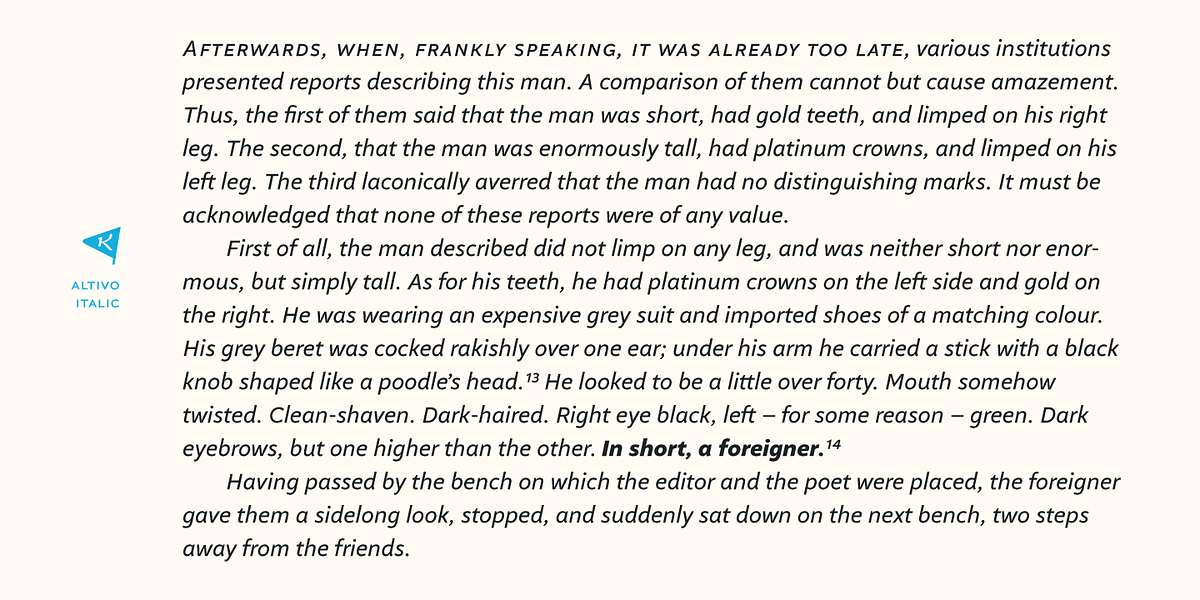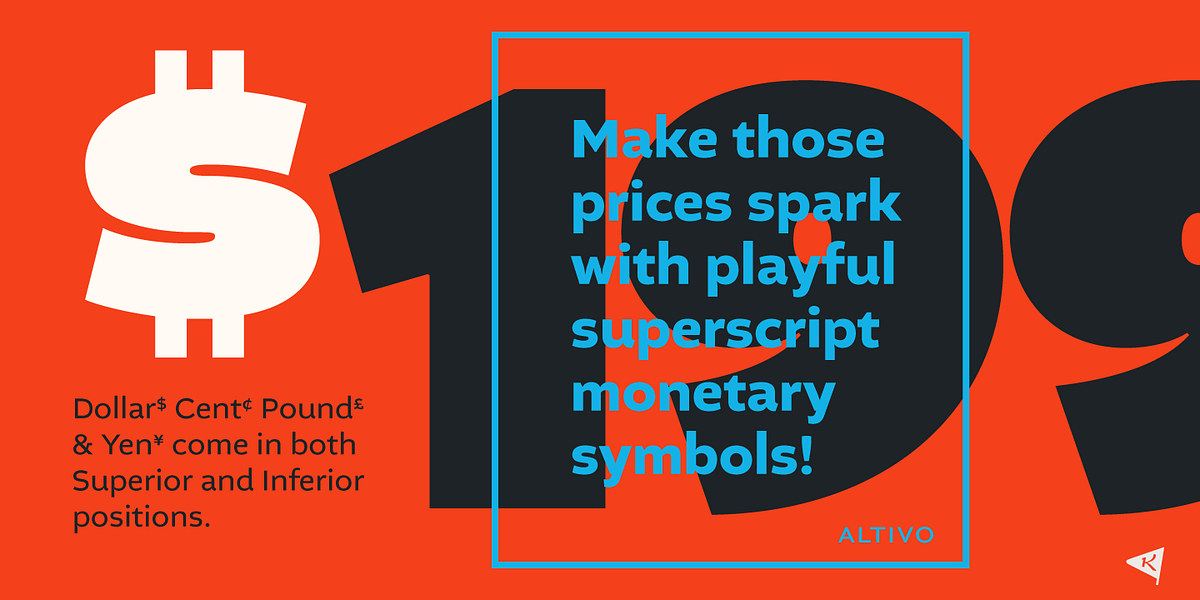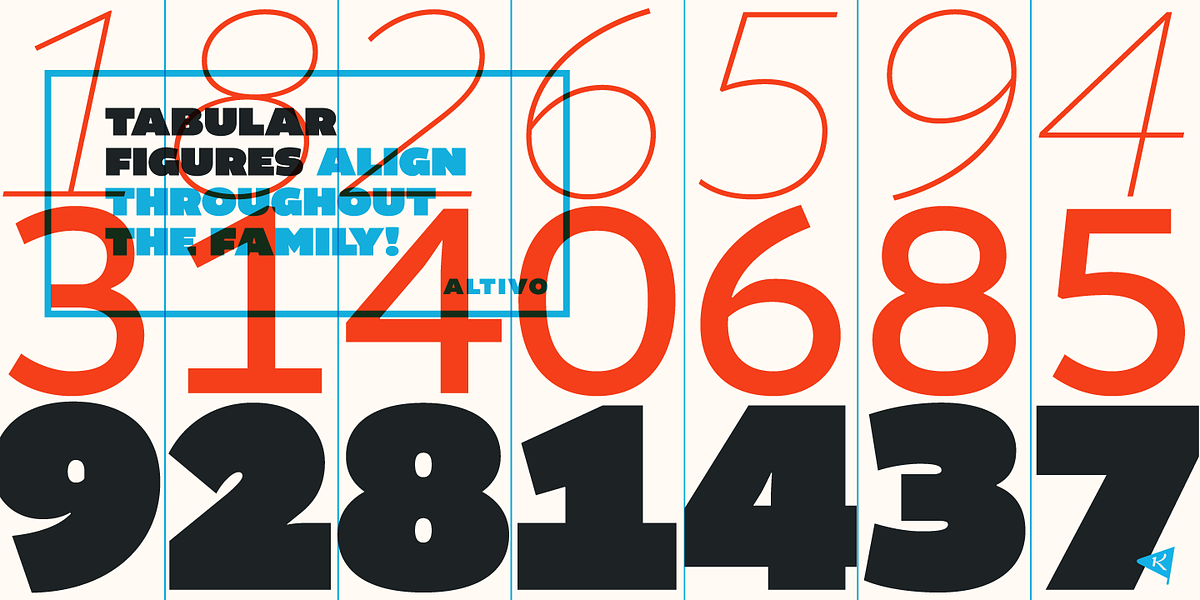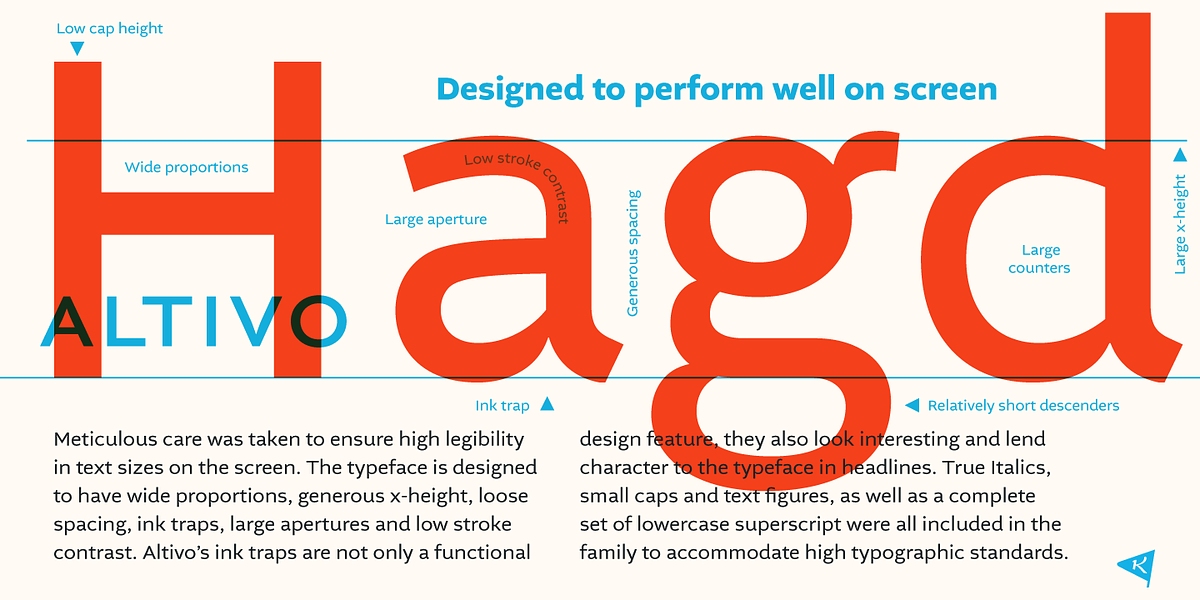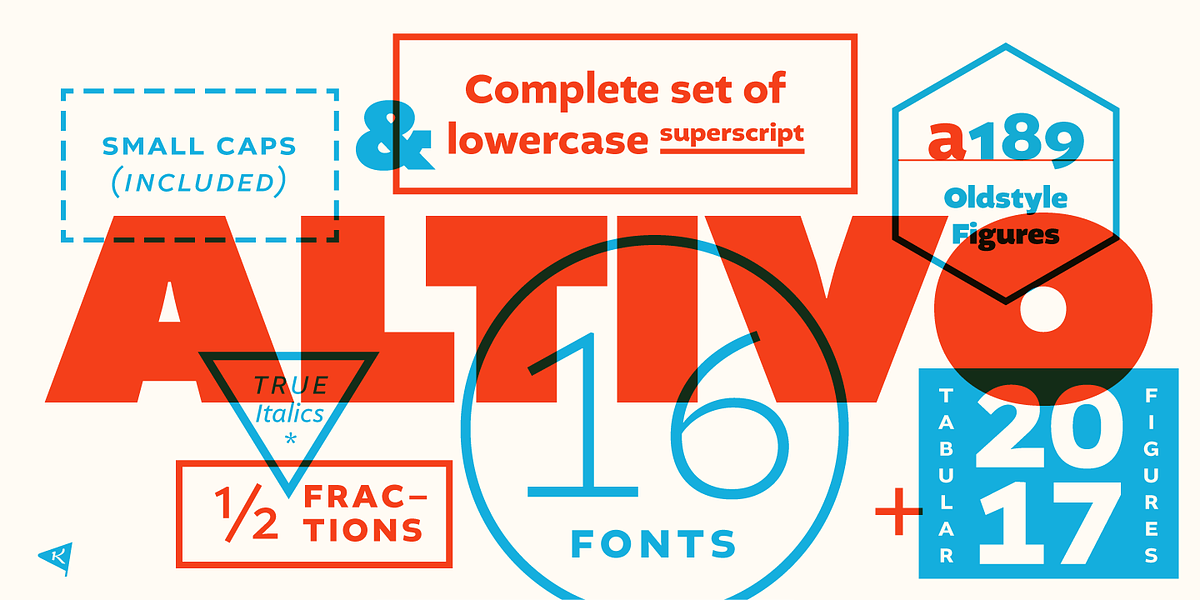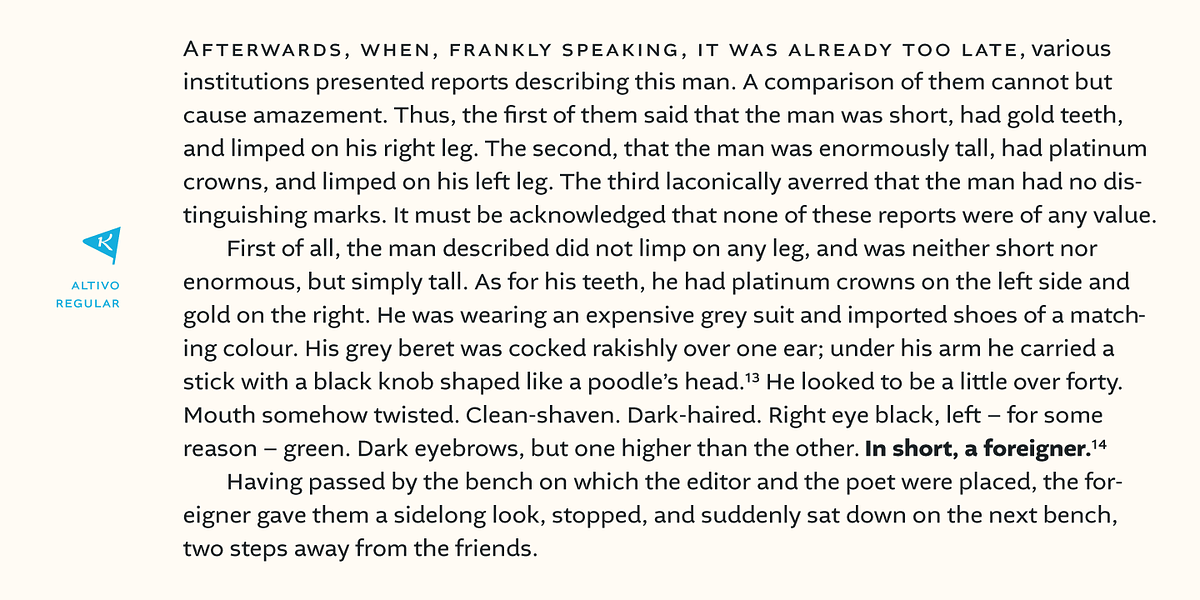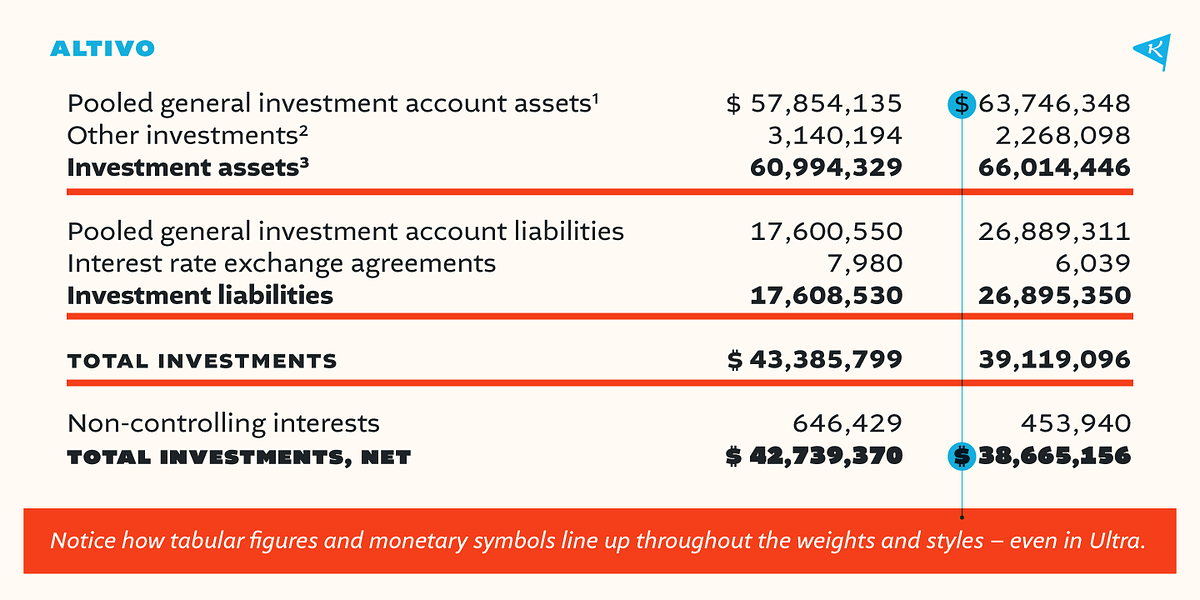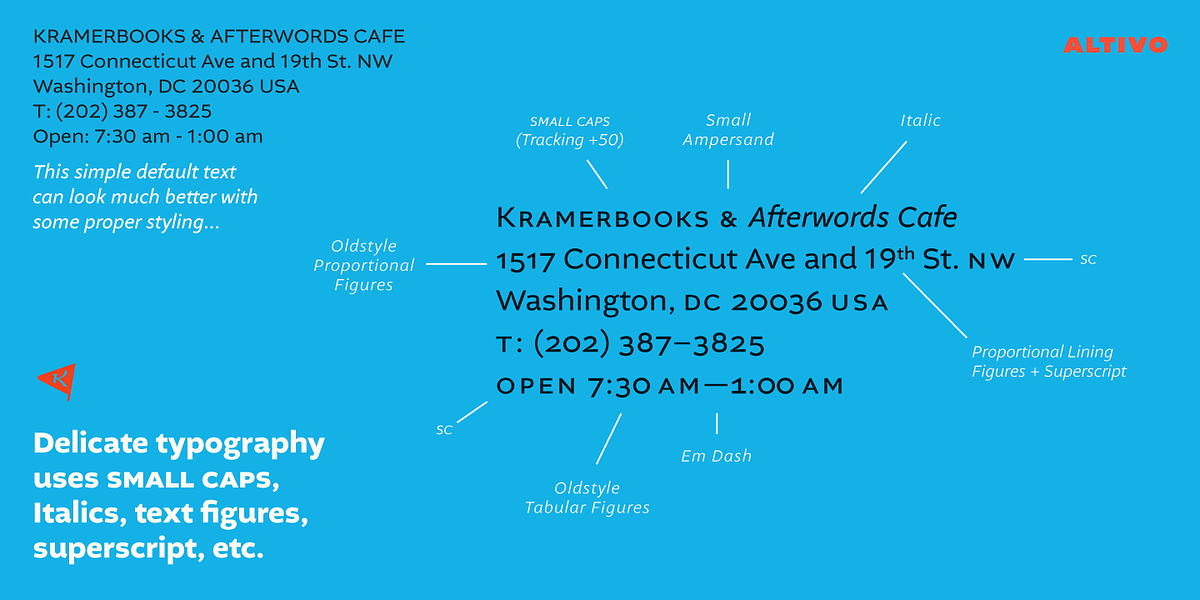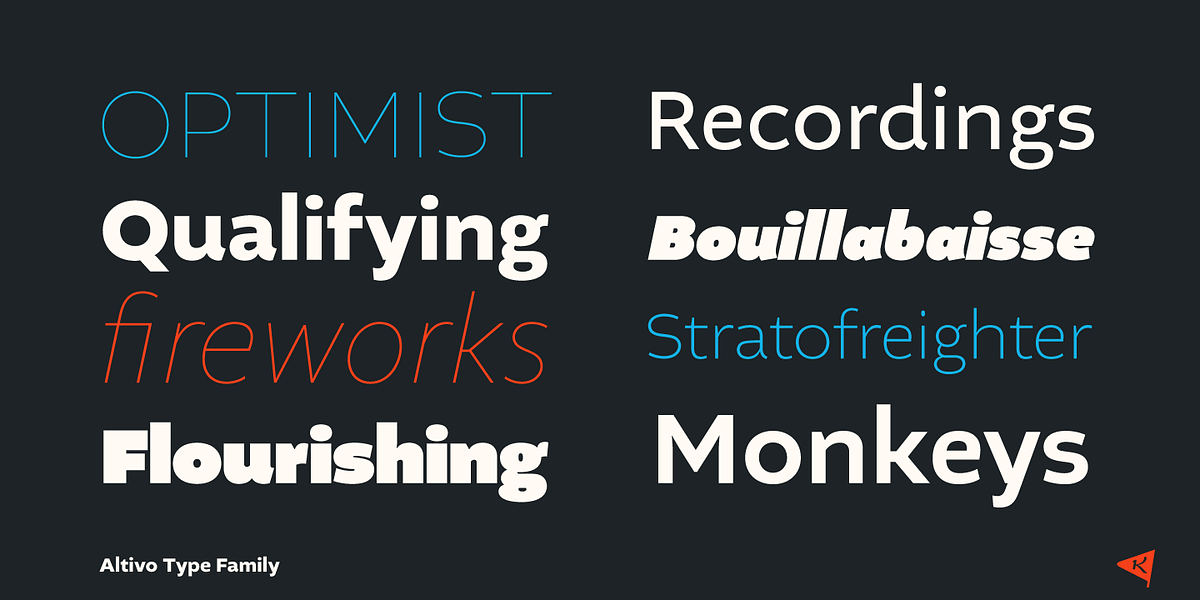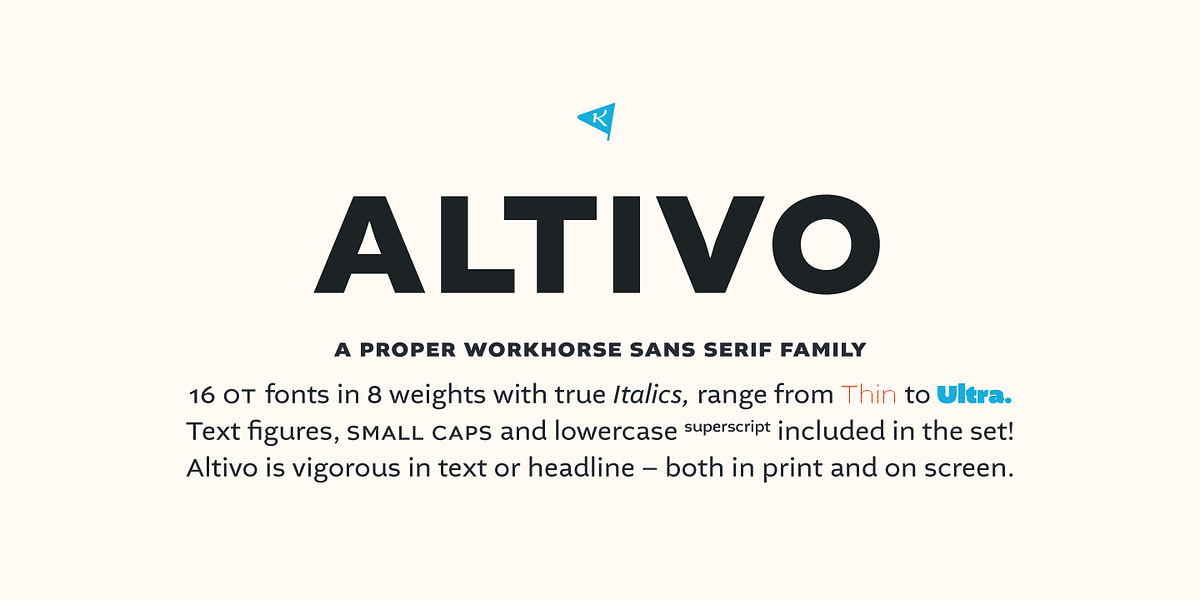
Altivo
Altivo is a geometric sans-serif typeface designed for high legibility. It comes in eight weights, from Thin to Ultra, with corresponding Italics. The typeface features wide proportions, generous x-height, loose spacing, ink traps, large apertures, and low stroke contrast. These features contribute to its readability even at smaller text sizes. Altivo also includes true italics, small caps, multiple sets of figures, and a complete set of lowercase superscript characters.